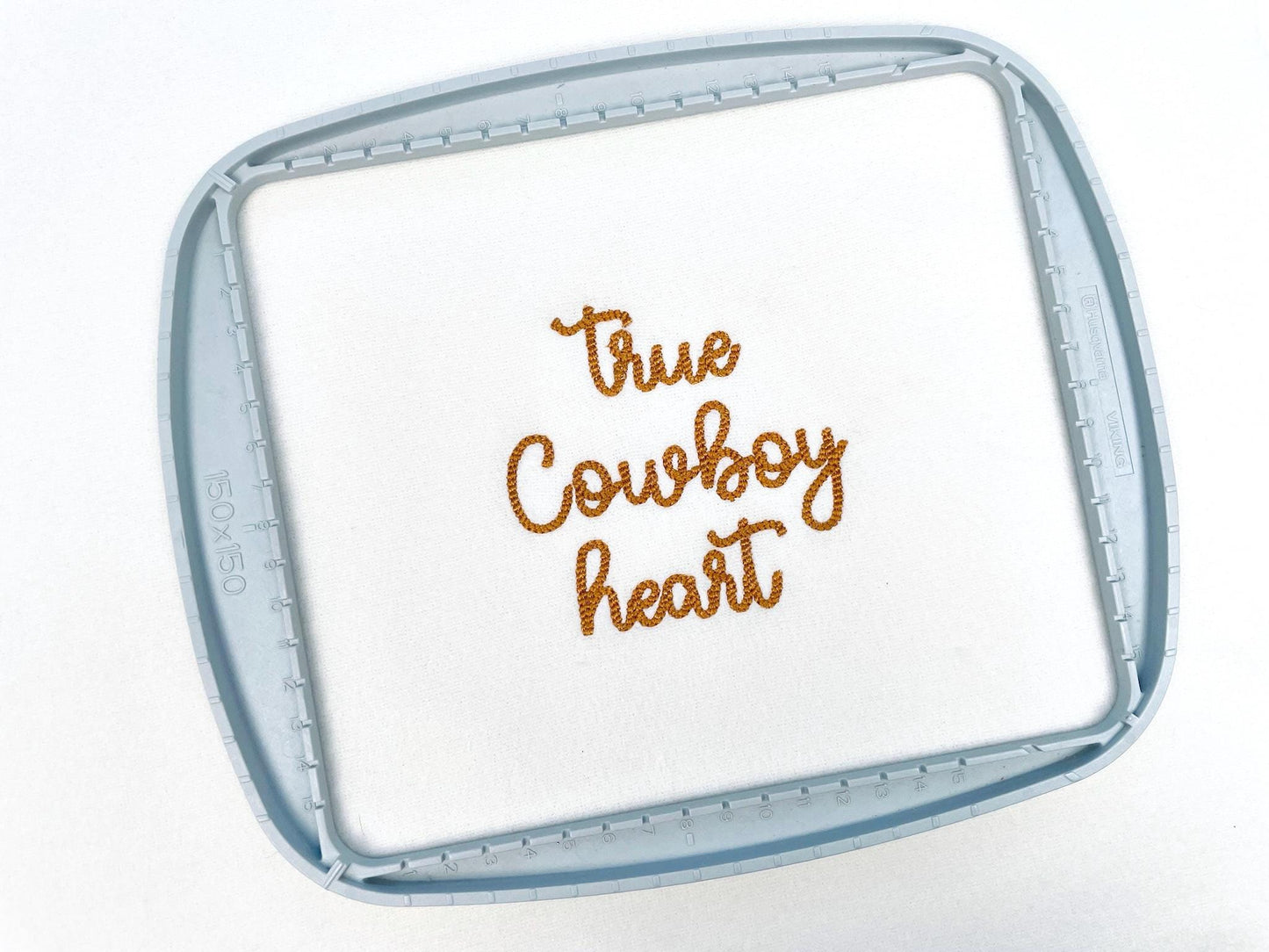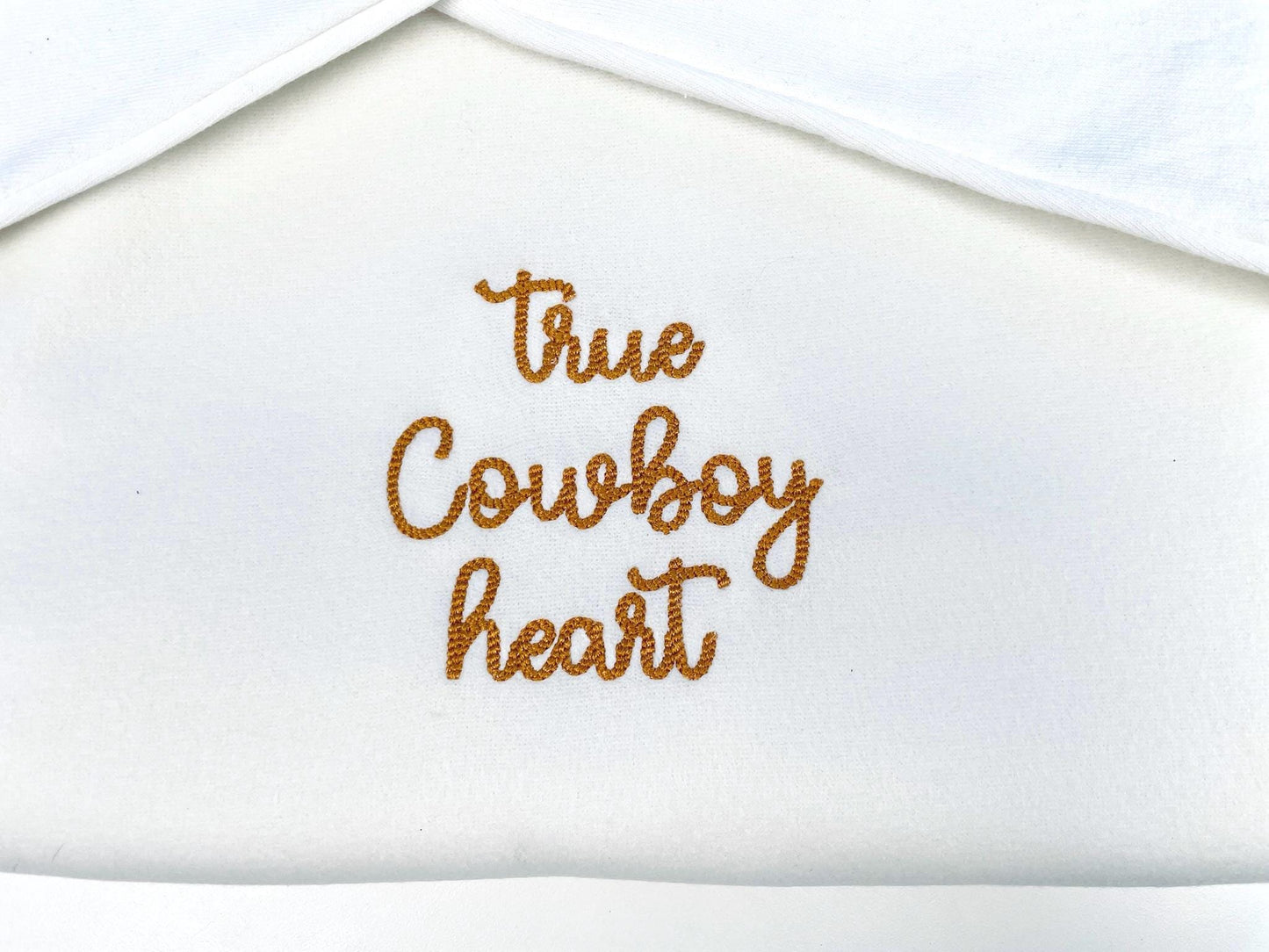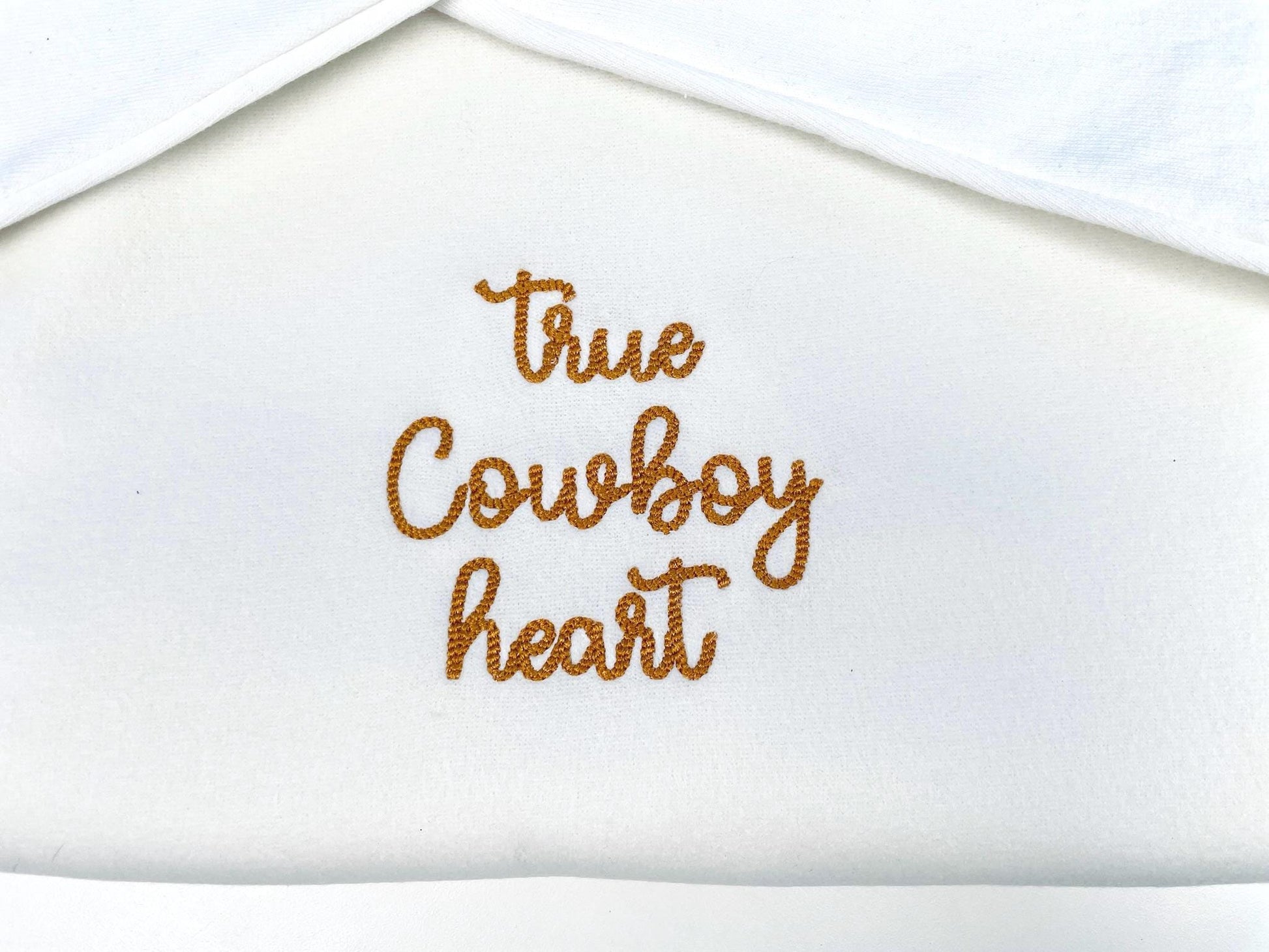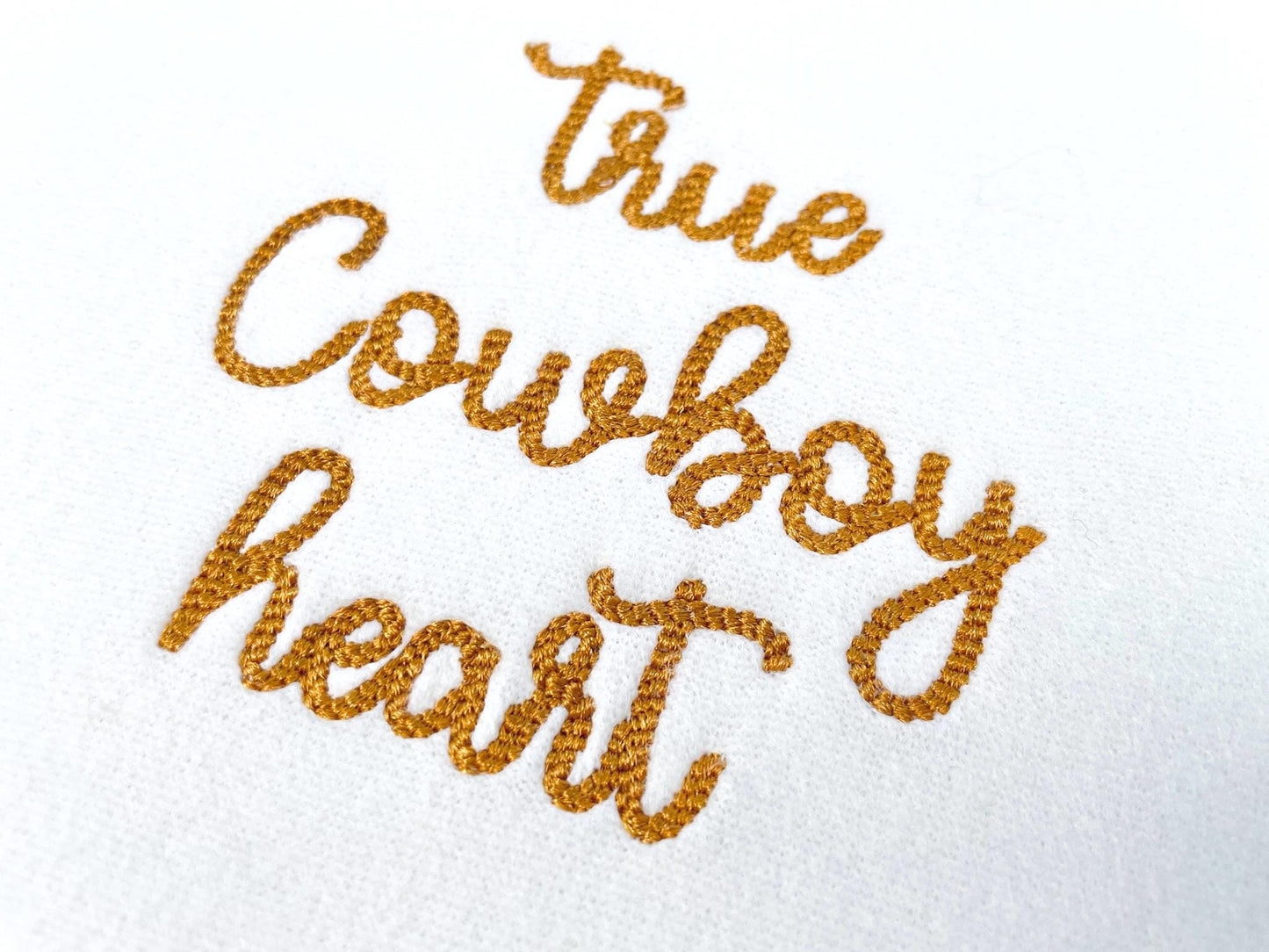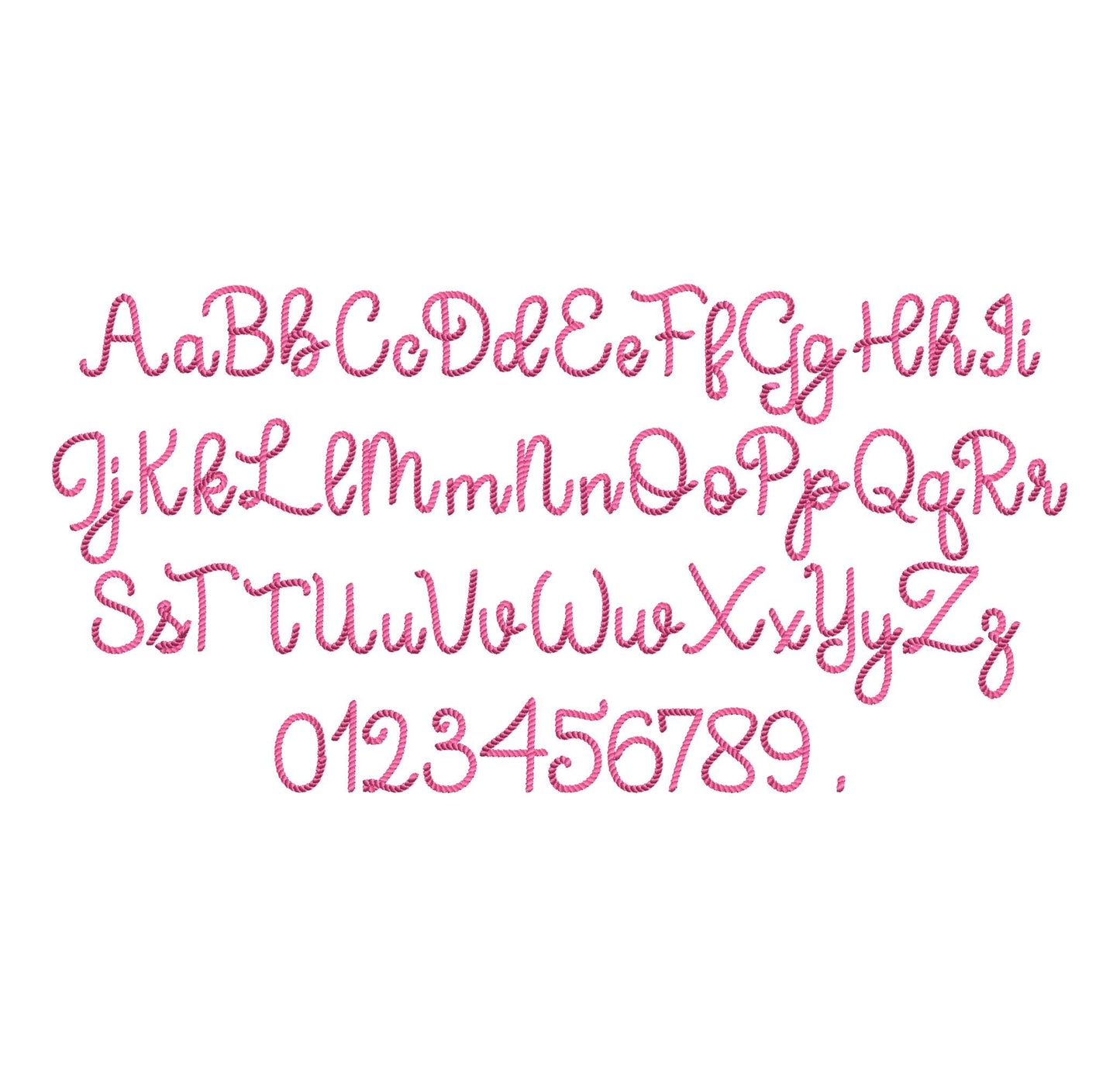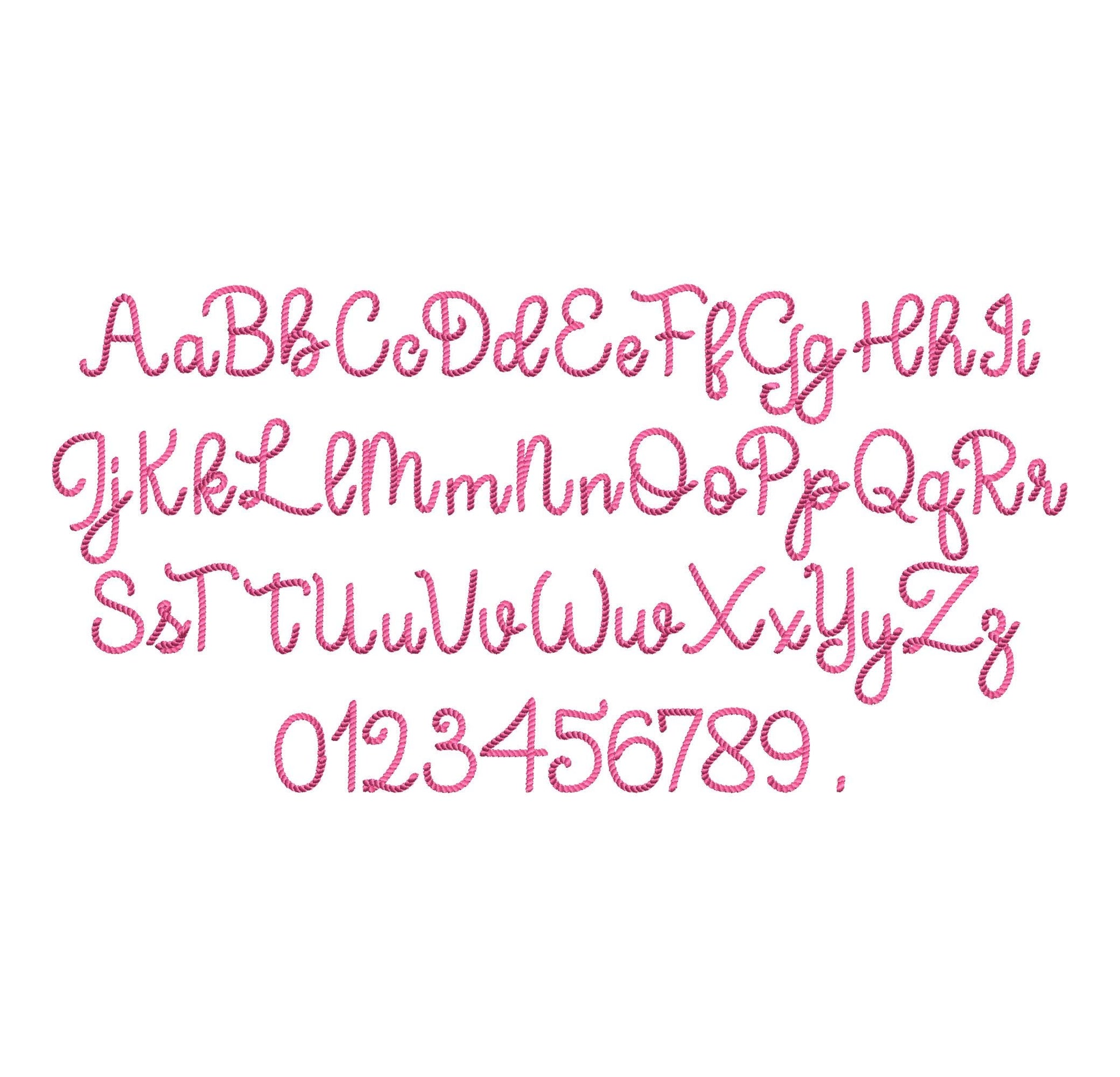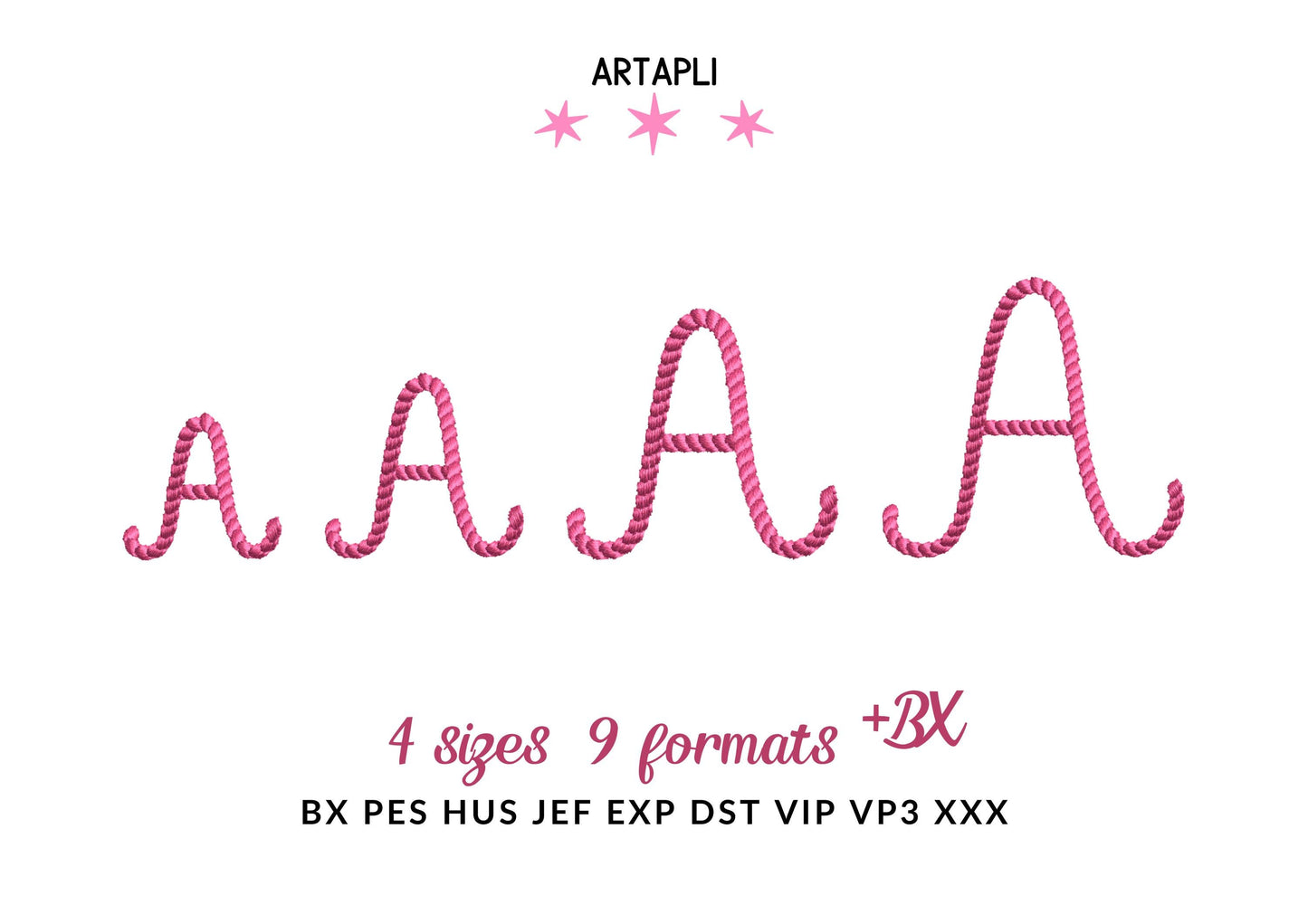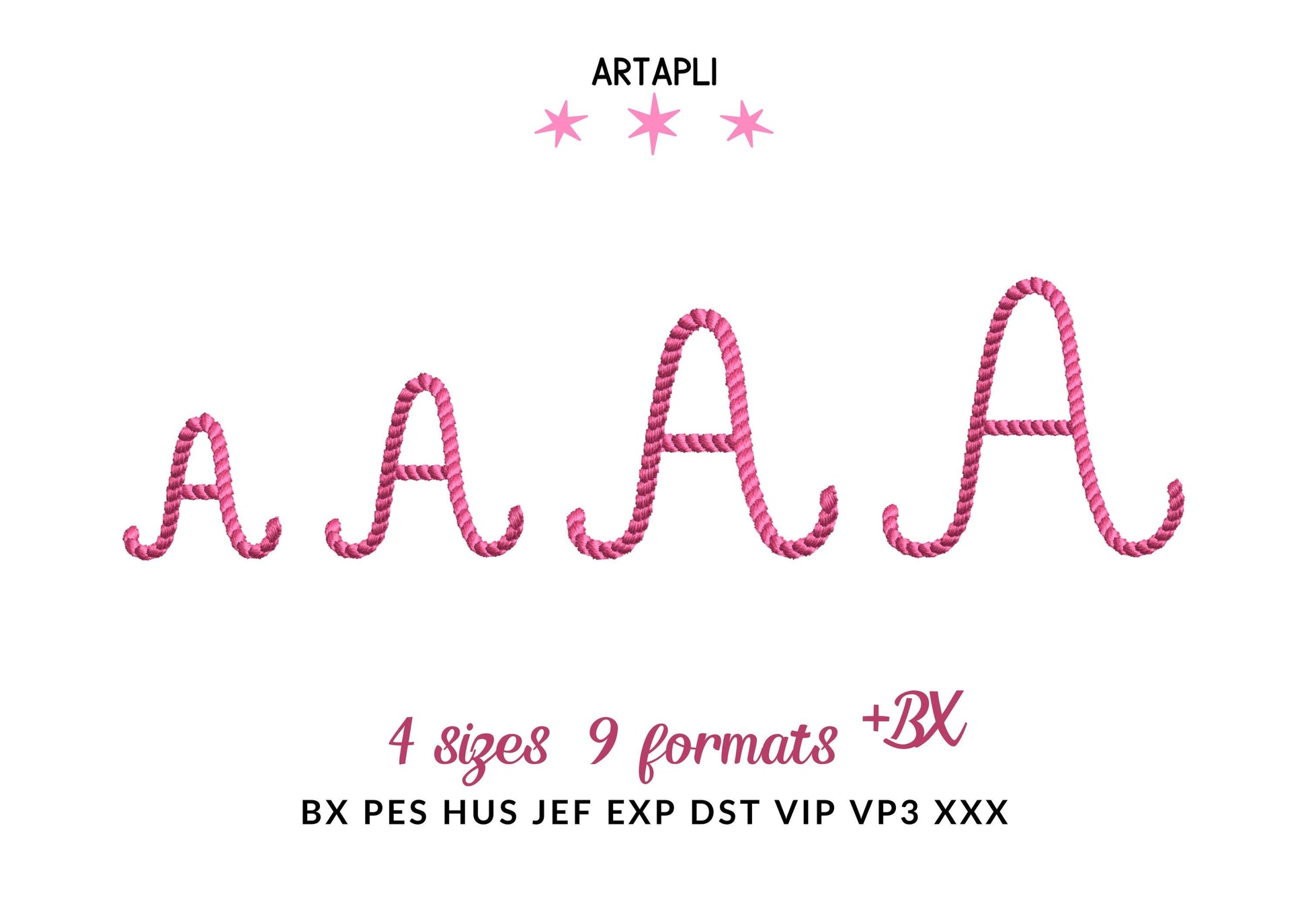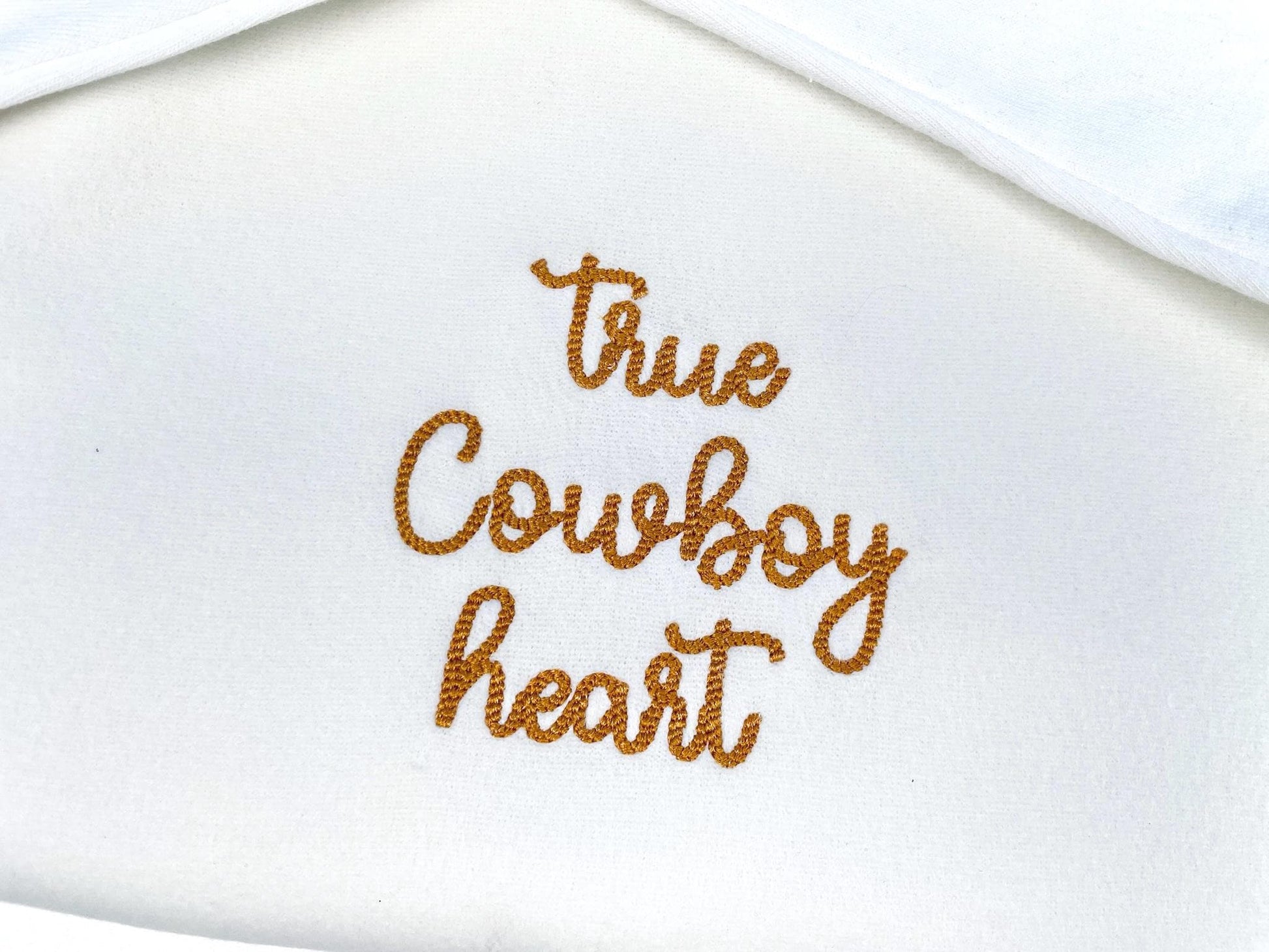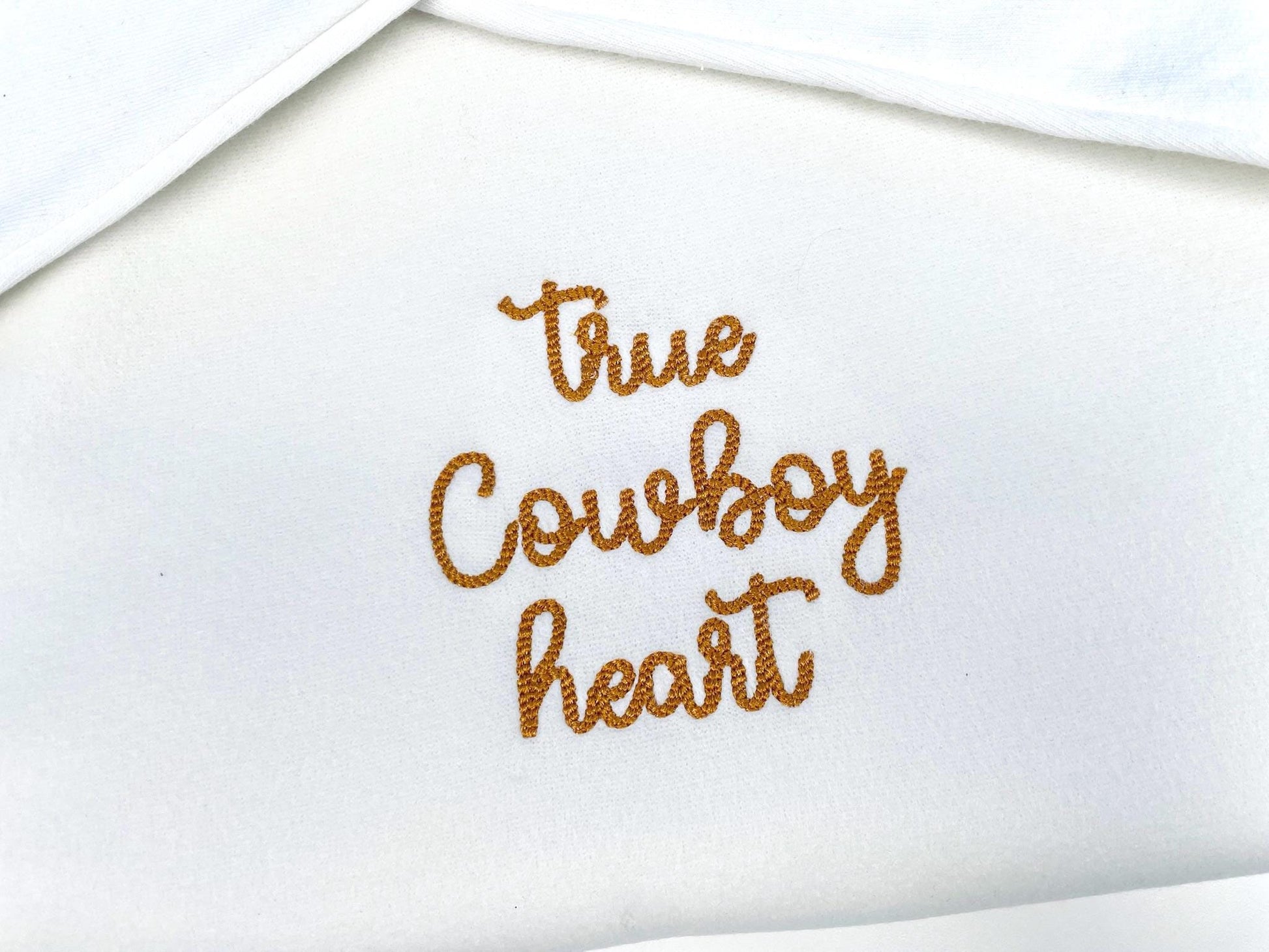
I was disappointed with this because the letters did not seem to connect as seamlessly as it appears in the stock photo
Or click to open the linkWhimsy, a mini rope stitch font with a rodeo look. Fun for cowboy shirts, small names and western gifts.
Uppercase and lowercase letters, numbers 0 to 9 and a period, in four mini sizes: 0.8, 1, 1.2 and 1.5 inches.
I was disappointed with this because the letters did not seem to connect as seamlessly as it appears in the stock photo